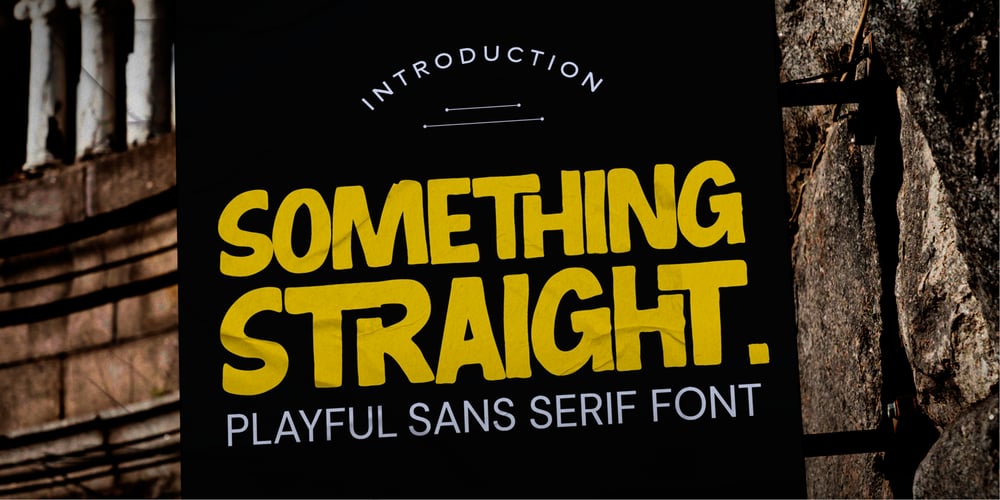
Something Straight
Something Straight font
Something Straight Font Family was designed by Abdul Malik Wisnu, Anang Fibriyanto and published by Gassstype. Something Straight contains 1 styles and family package options. Something Straight is a Playful Display Font that will make your designs look modern, unique and fun.It’s perfect for labels, quotes, posters, DIY projects, branding, packaging, greeting cards, websites, photography overlays, signs, window art, scrapbooking, tags and so much more!